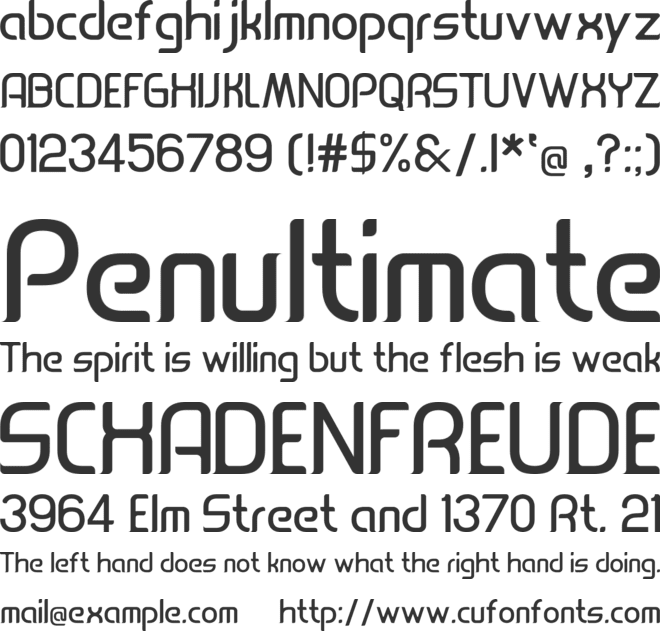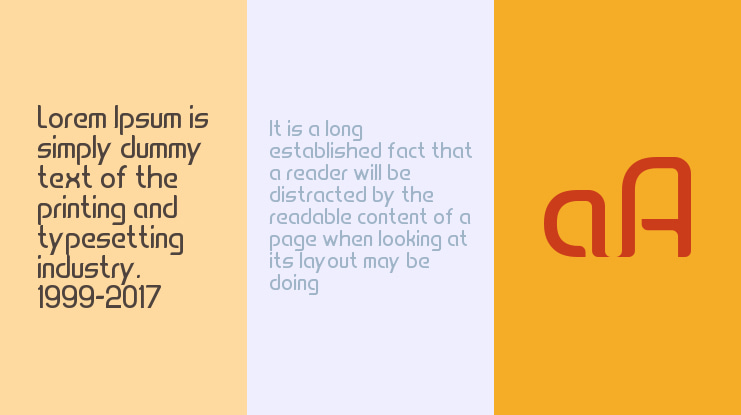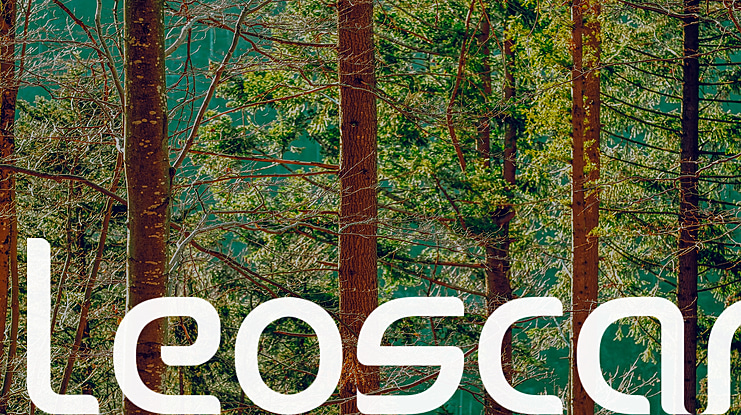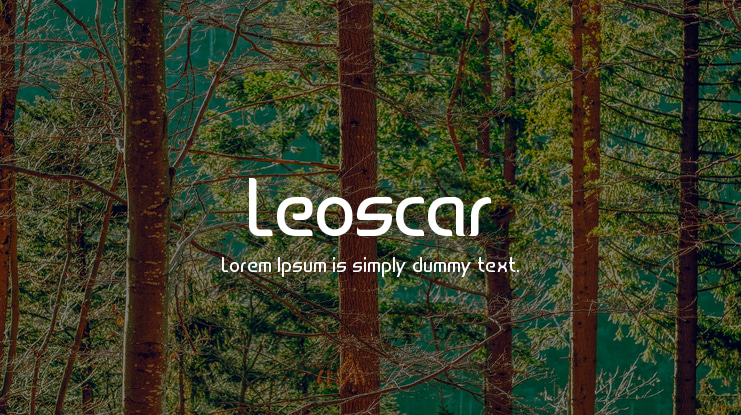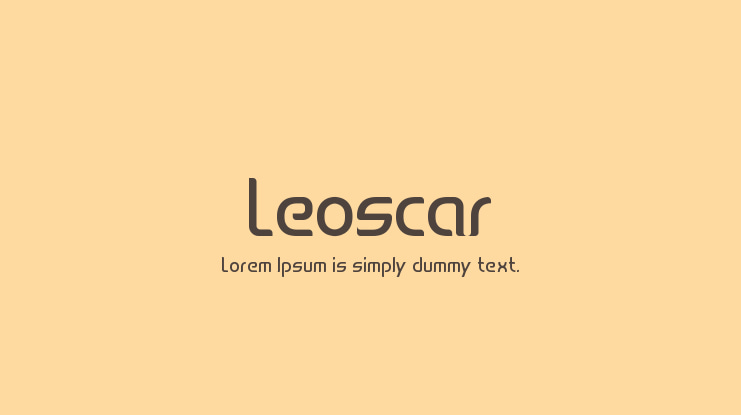
Leoscar Font Family
Leoscar is a modern Typeface which has been developed under an academic course on Department of Multimedia & Creative Technology, Daffodil International University. Special Thanks to my honorable teacher Abu Kalam Shamsuddin sir.